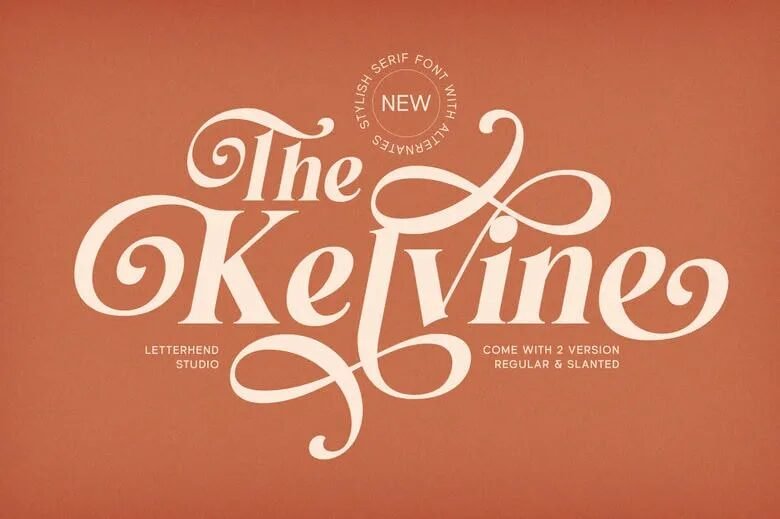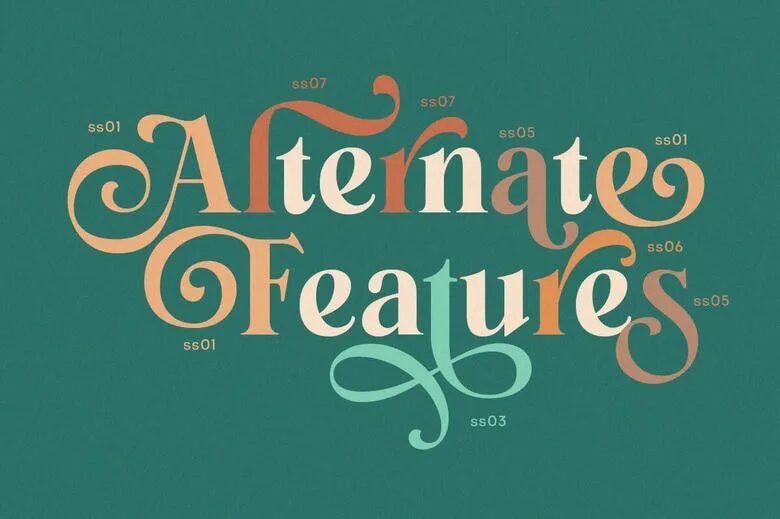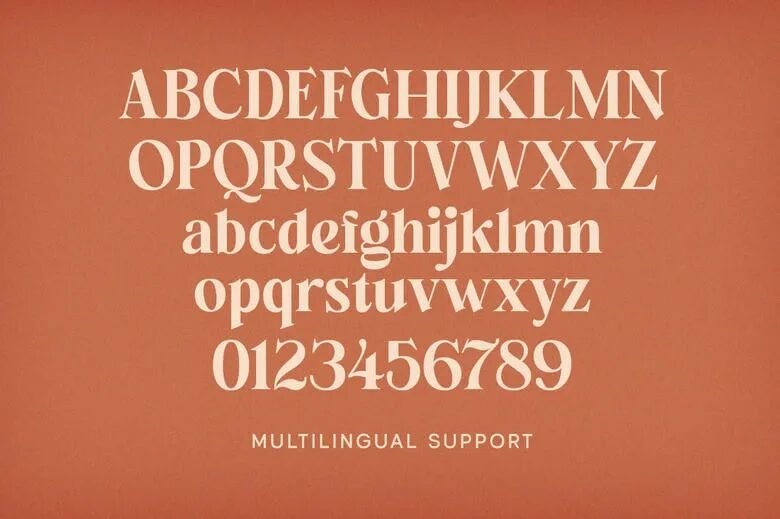
Meet The Kelvine Font – a bold, stylish serif font that’s all about elegance with a dramatic twist. Each letter flows with graceful curves and ornate swashes, perfect for those who love fonts with flair. Designed with luxurious alternates and high contrast strokes, it blends vintage charm with a modern edge.
Meet The Kelvine Font—a truly striking and unforgettable typeface that masterfully blends the refined elegance of classic serifs with a powerful, dramatic flair. This is a font designed for impact, where every character is an artistic statement. The hallmark of Kelvine is its exceptional sense of motion and grace, achieved through flowing, sinuous curves and highly stylized, ornate swashes that practically dance across the page. It captures a spirit of unapologetic luxury and artistic expression, making it the perfect choice for projects demanding an infusion of sophisticated charm and high-end appeal. Its aesthetic is deeply rooted in the opulent style of vintage typography but is executed with a crisp, modern precision that prevents it from ever feeling dated. This remarkable synthesis of old-world grandeur and contemporary sharpness is what gives the Kelvine font its unique and commanding presence in any design.
The technical design of Kelvine further enhances its dramatic personality, built upon a foundation of high-contrast strokes. This means the difference between the thick and thin parts of the letters is pronounced, lending the typeface a sophisticated, almost architectural structure that immediately draws the eye. To give designers maximum creative flexibility, the font includes an extensive array of luxurious alternates. These special characters allow you to customize the look and feel of your text, from subtle variations in letterforms to breathtaking, extended flourishes, enabling a truly bespoke typographic experience. Whether you’re crafting a high-fashion brand identity, designing a wedding invitation suite, or creating editorial layouts that need a touch of high drama, Kelvine offers the tools to deliver a design that is both stylishly bold and undeniably elegant. It is more than just a font; it is a meticulously crafted vehicle for conveying a sense of elevated, unforgettable sophistication.
If you’re looking for a clean, modern, and elegant script font for your next design project, The Kelvine Font is a perfect choice. With its smooth curves and consistent monoline strokes, this typeface brings a refined yet approachable vibe to everything from branding to social media graphics.
✨ About The Kelvine Font
The Kelvine Font is a monoline script typeface designed to give a hand-crafted yet professional feel to your work. Each letter flows naturally, making it ideal for designs that require a personal, stylish touch without sacrificing readability. Its simplicity means it pairs beautifully with bold sans-serifs or delicate serif fonts.
Key Features:
Elegant monoline style with consistent stroke width
Uppercase and lowercase letters
Punctuation and symbols included
Smooth curves for a hand-written effect
Works well in both large and small sizes
🖌 Perfect for Multiple Uses
The versatility of The Kelvine Font makes it suitable for a variety of design purposes, including:
Logos & Branding – Build a memorable and modern brand identity
Wedding Invitations & Stationery – Add a personal, romantic touch
Social Media Posts – Give your Instagram quotes and captions a stylish edge
Product Packaging – Perfect for cosmetics, boutique labels, and handmade goods
Posters & Flyers – Stand out with a sleek and elegant font style
💡 Why Choose The Kelvine Font?
Its timeless look makes The Kelvine Font a great investment for designers, marketers, and hobbyists alike. Whether you’re working on high-end branding or a simple personal project, this font delivers a polished, modern feel without being overly formal.
The Kelvine Font is a Serif Font